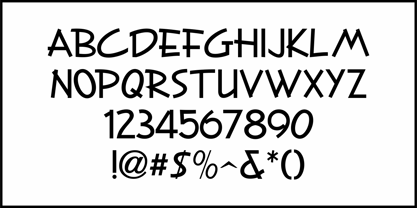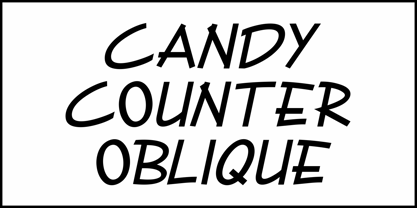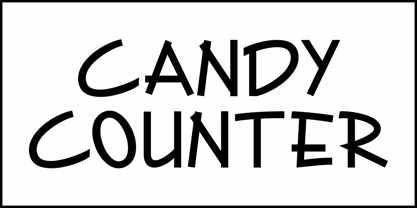
Candy Counter JNL
von Jeff Levine
Die Schriftfamilie Candy Counter JNL wurde von Jeff Levine entworfen und von Jeff Levine veröffentlicht. Candy Counter JNL enthält 2 Stile und Familienpaketoptionen.
An ad for Republic Pictures in the 1939 edition of Film Daily's "Cavalcade" was hand-lettered in a pleasant and casual sans serif type style.
This design is now available digitally as Candy Counter JNL, in both regular and oblique versions.
Über Jeff Levine
Jeff Levine has been in love with lettering since the third grade, when a schoolmate brought a lettering stencil into class. He has worked in both the graphics and music industries, and began his work with digital type via his own site, which hosted over one hundred free dingbat fonts until its retirement in 2009. Although these fonts were experimental at best, Jeff received "thank you" letters from points all over the world for making his designs available. Encouraged by these responses, Jeff decided to set his sights on creating interesting and commercially viable type fonts.